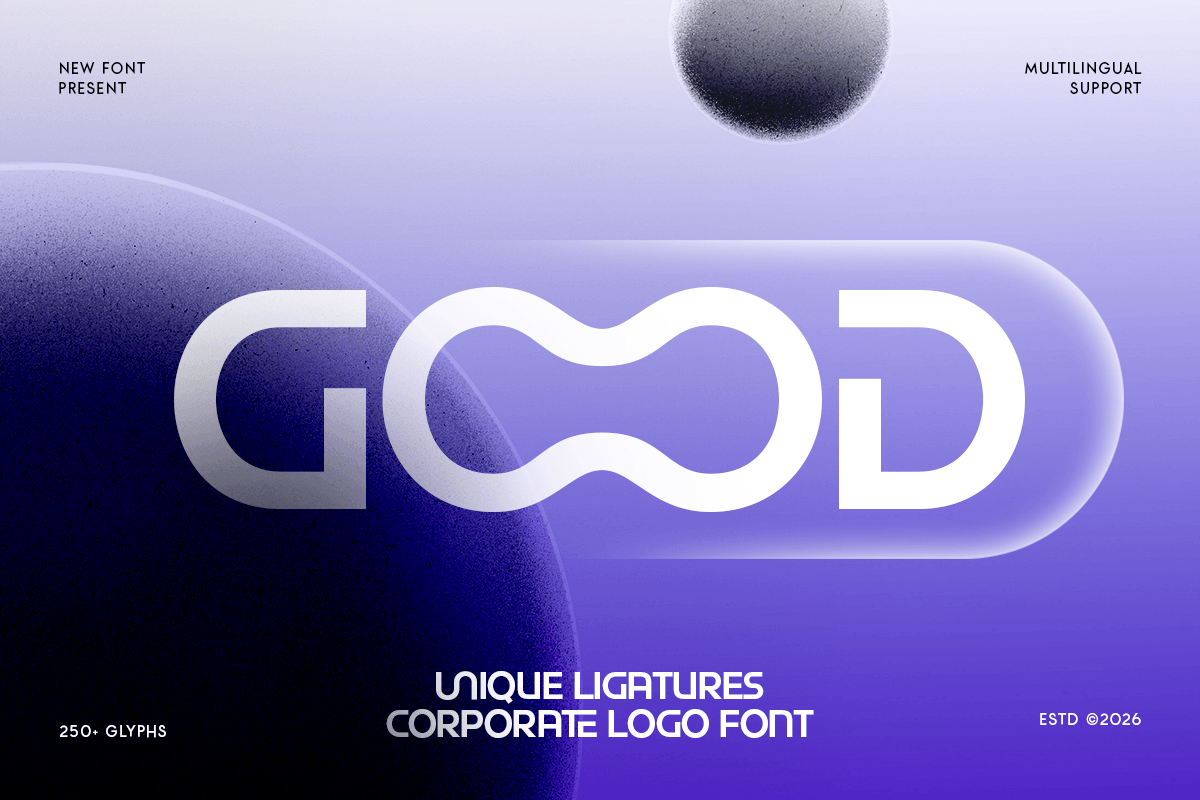
Good - Modern Tech Logo Font
GOOD is a modern tech logo font designed to bring clean precision and futuristic character to your typography. With sleek letterforms, balanced spacing, and a technology-inspired rhythm, this typeface creates a sharp visual tone that feels innovative, professional, and instantly brand-ready.
Built for digital-first branding, GOOD works beautifully across logos, wordmarks, startup identities, UI graphics, website headers, app visuals, product launches, presentations, social media campaigns, and futuristic promotional layouts. Its modern tech structure keeps every composition clear and readable while adding a polished digital edge across both print and screen.
Whether you’re building a technology brand, creating software visuals, designing a startup logo, or crafting sci-fi inspired marketing assets, GOOD provides a modern typographic foundation that makes your identity feel sleek, smart, and unforgettable.
Inspiration Behind GOOD
GOOD is inspired by modern technology branding and futuristic interface design—where clean geometry, digital clarity, and sharp visual rhythm create strong brand recognition. The design focuses on sleek structure and innovative simplicity to support logos, headlines, and digital communication with a confident modern presence.
GOOD Font Features:
• Modern tech letterforms optimized for logo and wordmark design
• Sleek digital structure with futuristic visual character
• Strong readability for headlines, branding, and interface graphics
• Perfect for technology brands, startups, and digital products
• Tech logos, wordmarks, and startup brand identity systems
• UI graphics, website headers, apps, and digital product typography
• Futuristic posters, product launches, and sci-fi campaign visuals
• Software branding, presentations, and modern corporate visuals
• Social media graphics, digital ads, and high-tech marketing assets